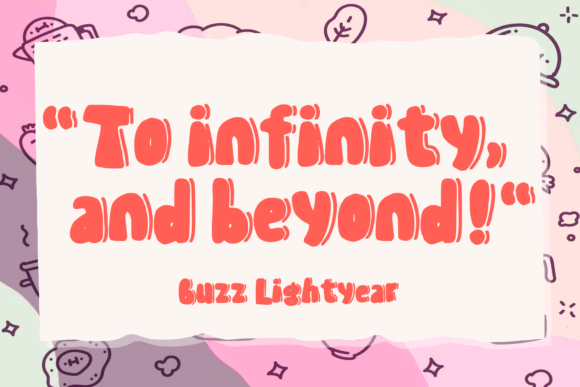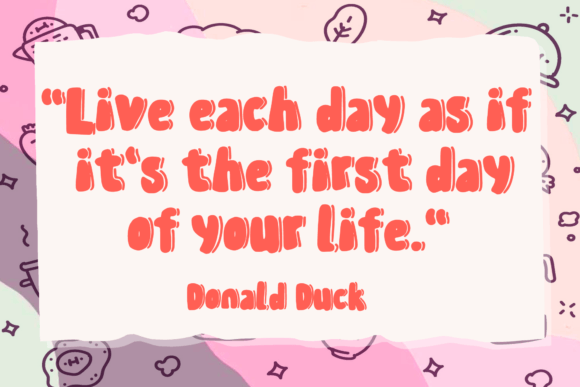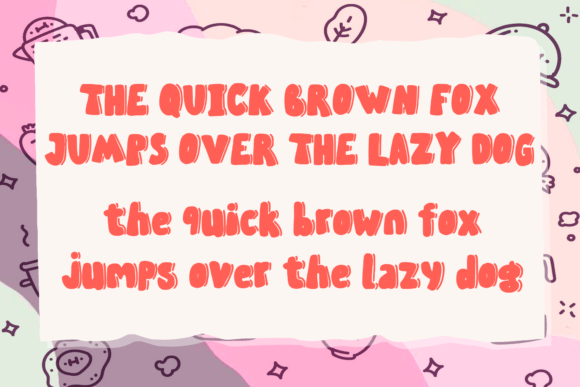
Gusteau Font: The Ultimate Choice for Fun and Versatile Designs
Are you a designer or crafter looking for a font that can add a playful touch to your creations? Look no further than the Gusteau font! This fun and bold display font is perfect for a wide range of projects, from t-shirts and kids’ book designs to greeting cards, stickers, and posters. In this article, we’ll explore the features and benefits of the Gusteau font, and show you how to use it to create lovely designs that will capture the hearts of your audience.
The Characteristics of Gusteau Font
Gusteau font is a bold and playful display font that is designed to add a casual touch to your designs. Its incredibly versatile style makes it perfect for a wide range of projects, from fun and quirky designs to more sophisticated and elegant ones. The font features:
- Bold and playful style: Gusteau font has a bold and playful style that is sure to grab attention.
- Versatile design: The font is designed to be versatile, making it perfect for a wide range of projects.
- Easy to read: Despite its bold style, Gusteau font is easy to read, making it perfect for designs that require a clear and concise message.
Uses of Gusteau Font
Gusteau font is perfect for a wide range of projects, including:
- T-shirts and apparel: Add a fun and playful touch to your t-shirts and apparel with Gusteau font.
- Kids’ book designs: Create engaging and fun kids’ book designs with Gusteau font.
- Greeting cards: Add a personal touch to your greeting cards with Gusteau font.
- Stickers and posters: Create eye-catching stickers and posters with Gusteau font.
- Anything that needs a casual touch: Gusteau font is perfect for any project that needs a casual and playful touch.
Benefits of Using Gusteau Font
Using Gusteau font in your designs offers a range of benefits, including:
- Unique and eye-catching designs: Gusteau font helps you create unique and eye-catching designs that will stand out from the crowd.
- Increased versatility: The font’s versatile design makes it perfect for a wide range of projects.
Tips for Using Gusteau Font
Here are some tips for using Gusteau font in your designs:
- Experiment with different colors: Gusteau font looks great in a range of colors, so don’t be afraid to experiment and find the perfect color for your design.
- Use it with other fonts: Gusteau font can be paired with other fonts to create a unique and interesting design.
- Keep it simple: Don’t overcomplicate your design – keep it simple and let Gusteau font do the talking.
In conclusion, Gusteau font is a fun and versatile display font that is perfect for designers and crafters looking to add a playful touch to their creations. Its bold and playful style, versatile design, and ease of use make it perfect for a wide range of projects. Whether you’re creating t-shirts, kids’ book designs, greeting cards, or stickers and posters, Gusteau font is the ultimate choice. So why wait? Fall in love with Gusteau font and start creating lovely designs today!